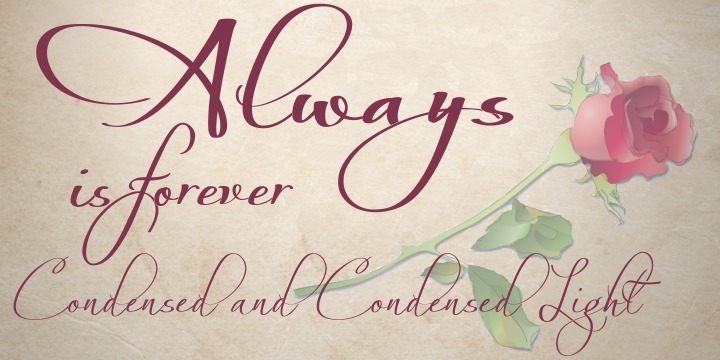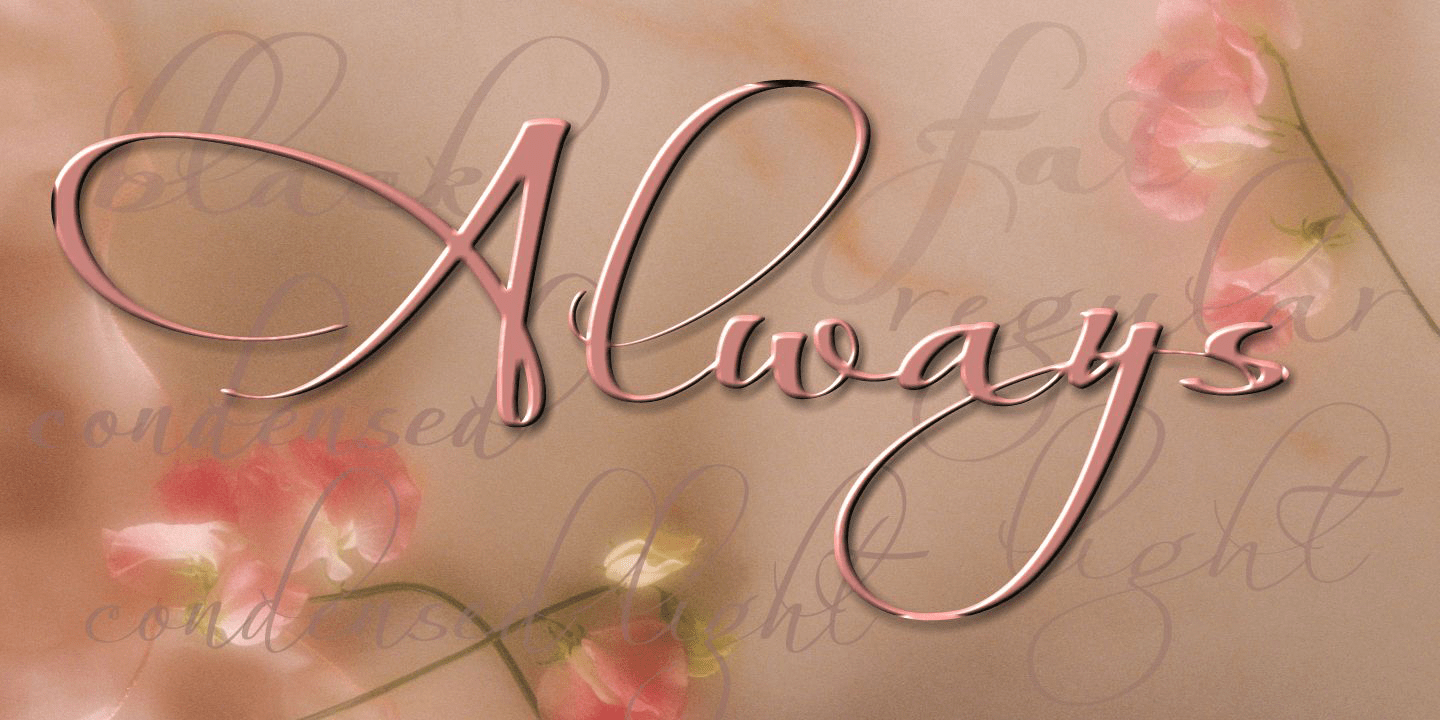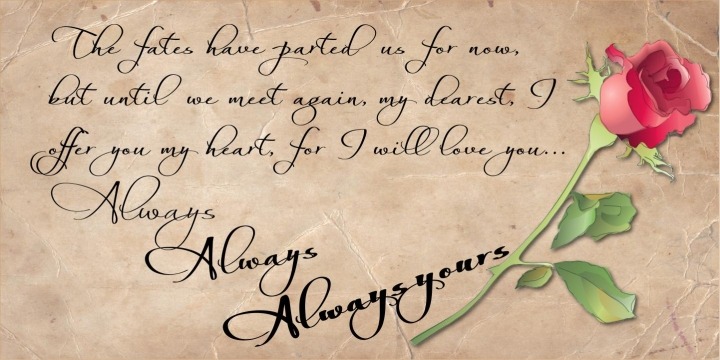
Always
Font Family by Scholtz Fonts
Always is an elegant script font in six styles. Always makes full use of extravagant ascenders and descenders, giving the font a generous, opulent appearance. To use the font to its best advantage, we suggest that the user allows a generous line spacing. (For example: use multiple line spacing of no less than 1.3 when using the MS Word application).
Always comes in six styles, condensed light, light, condensed regular, black and fat, giving the user enough variety for all possible uses. Use a combination of styles for product branding, book covers, greeting cards, wedding media, women's advertising media. The Always combination will enable you to use different styles of the same font for headings, sub-headings and body text.